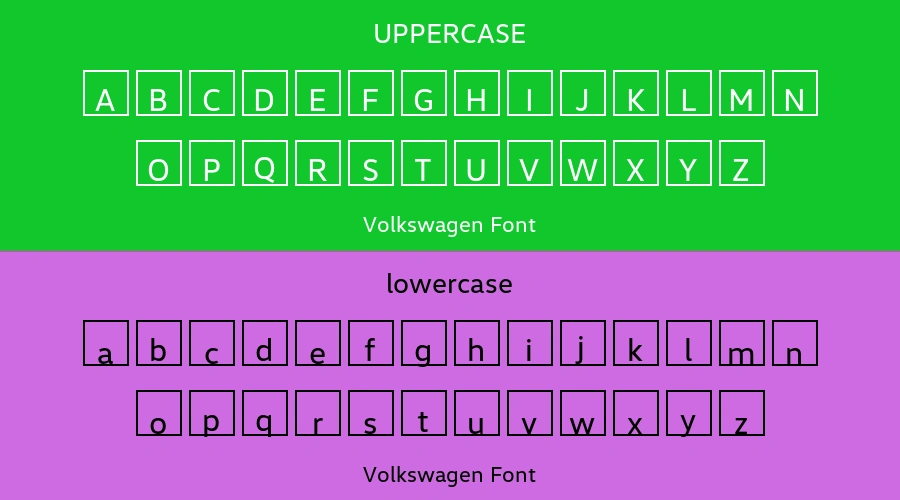
About Volkswagen Font
Designed with precision, Volkswagen Font merges pen-inspired details with distinctiveness in every character. This versatility makes it particularly effective for financial statements, where clarity and cultural significance directly impact communication quality. Each letterform demonstrates meticulous craftsmanship.
Technical excellence shines through elements like clean corners and decorative sets, enhancing typographic versatility. In hero imagery settings, Volkswagen Font proves its worth through superior cross-platform compatibility. The thoughtful execution of stroke contrast and cultural relevance ensures professional results.